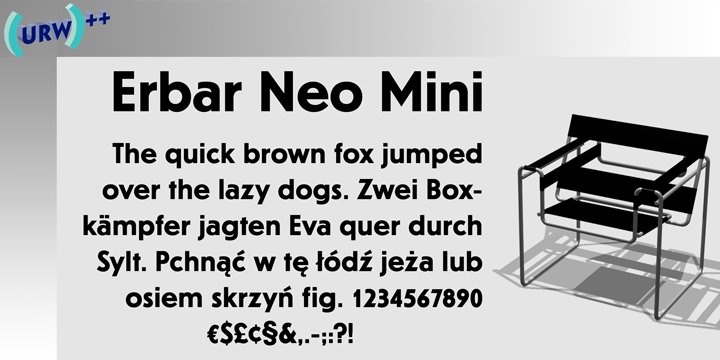
Erbar Neo Mini Font is perfect for minimalist branding, mobile app interfaces, compact displays, modern signage, small-scale publications, efficient corporate communications, space-conscious designs, contemporary logos, and any project requiring condensed typography with geometric precision and functional elegance.
What makes Erbar Neo Mini Font exciting is its compact efficiency that reimagines classic geometric principles for modern space-conscious design with condensed letterforms that maximize readability while minimizing footprint. This innovative typeface combines the timeless appeal of Bauhaus geometry with contemporary functionality for digital environments where space is premium. The font's efficient character and modern aesthetic make it perfect for applications demanding clarity, professionalism, and optimal space utilization without compromising visual impact.
The Erbar Neo Mini Font family includes multiple weights from thin to black, featuring complete uppercase and lowercase alphabets, numerals, punctuation marks, and compact design elements. The font maintains consistent geometric principles throughout all weights while providing exceptional legibility even at small sizes and ensuring optimal performance across digital displays and print applications.
Whether you're designing user interfaces for mobile devices, creating compact branding systems, or developing space-efficient corporate materials with modern geometric aesthetics, Erbar Neo Mini Font Free Download delivers unmatched functionality and contemporary sophistication. This exceptional typeface transforms ordinary text into efficient visual communications that honor geometric design principles while meeting the demands of modern digital environments. The font's compact precision makes it ideal for tech companies, startups, and contemporary brands. Download this remarkable font today and bring geometric efficiency to your design projects with authentic modernist elegance and space-conscious functionality.